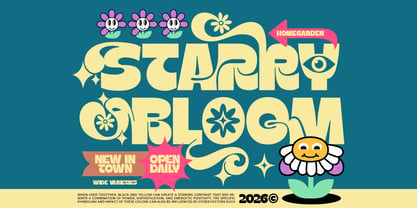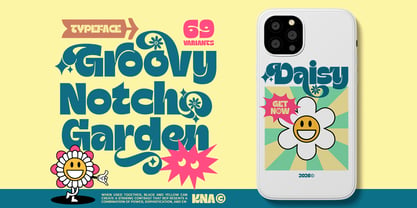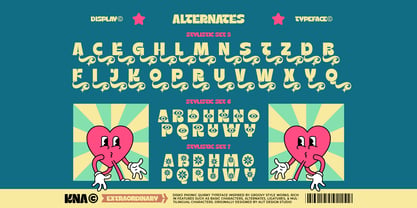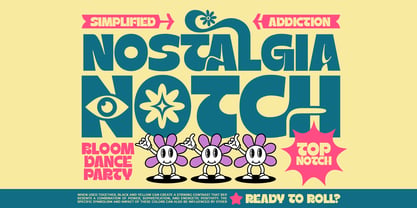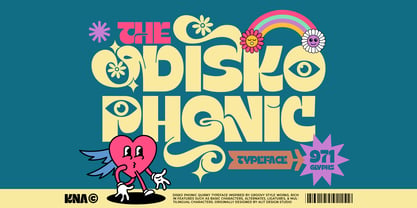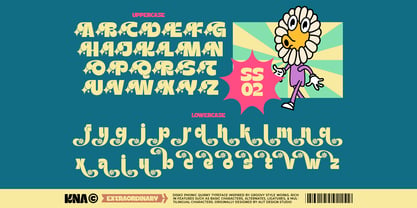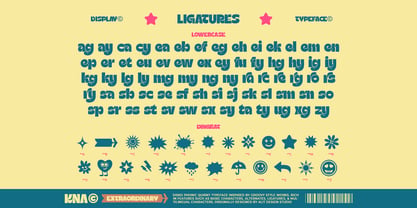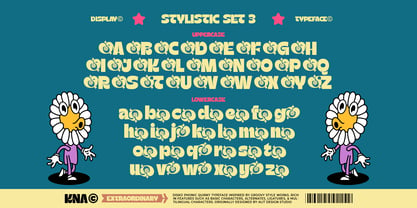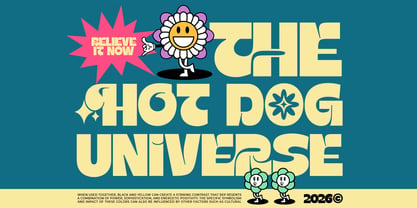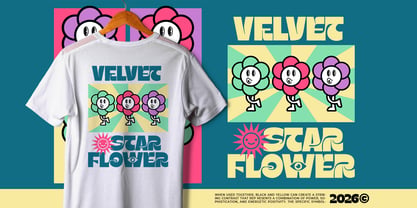
Disko Phonic
by Alit Design
The Disko Phonic Font Family was designed by Alit Suarnegara and published by Alit Design. Disko Phonic contains 1 styles. More about this family
Disko Phonic: A Quirky Retro-Groovy Display Typeface Step into a time machine and bring the vibrant energy of the '70s into the modern era with Disko Phonic. Inspired by the playful spirit of groovy style works, this typeface is a bold celebration of curves, character, and creative freedom. Whether you’re designing for a high-energy brand or a whimsical editorial project, Disko Phonic offers an unparalleled level of personality. The Aesthetic: Retro Meets Modern Playfulness Disko Phonic is more than just a font; it’s a design toolkit. It features thick, bubbly letterforms that feel both nostalgic and fresh. The "quirky" nature of the typeface is highlighted by its fluid shapes and unexpected flourishes, making it perfect for headlines that need to pop. Unmatched Versatility with 971 Glyphs We believe in giving designers more options. With a massive library of 971 glyphs, Disko Phonic allows for extreme customization. The font is packed with: 7 Distinct Stylistic Sets: From elegant swashes and flower-powered characters to edgy, eye-catching alternates. Extensive Ligatures: Smoothly connected uppercase and lowercase pairs to create a hand-lettered feel. Unique Dingbats: A collection of retro-themed icons (sunbeams, smiley faces, mushrooms, and stars) that perfectly complement the typeface. Multilingual Support: Ready for global projects with a wide range of character accents. Perfect For: Branding & Logos: Create a memorable identity that stands out. Apparel Design: Ideal for t-shirts, tote bags, and streetwear. Posters & Packaging: Give your products a soulful, "extraordinary" look. Social Media Graphics: Catch the eye with high-contrast, groovy headlines. What’s Included: Uppercase & Lowercase Characters Numbers & Punctuation Stylistic Alternates & Ligatures Bonus Dingbats (accessible via Stylistic Sets/OpenType features) Bring a sense of "Art Beyond Mind" to your creative projects. Disko Phonic is designed by Alit Design Studio for those who aren’t afraid to be bold, be quirky, and be happy.
Designers: Alit Suarnegara
Foundry: Alit Design